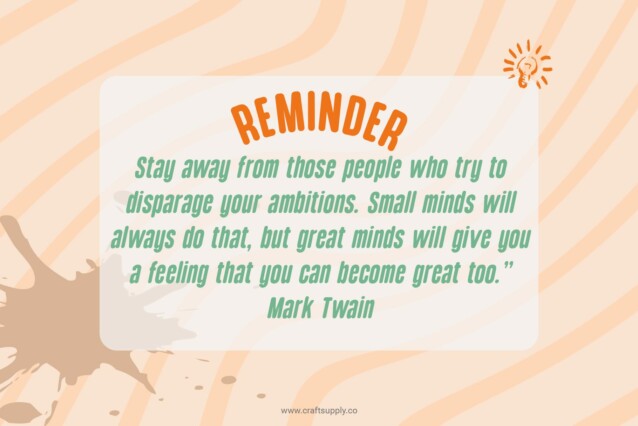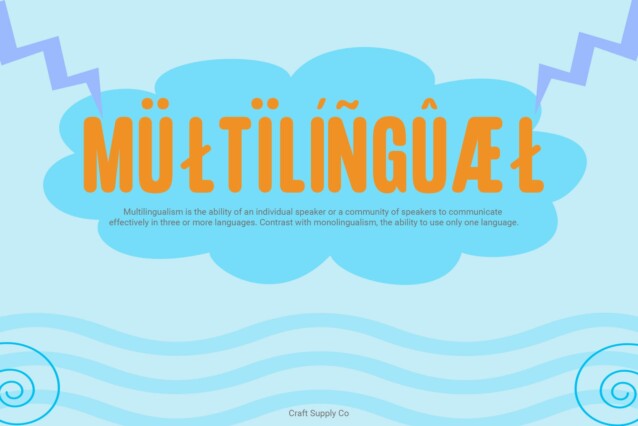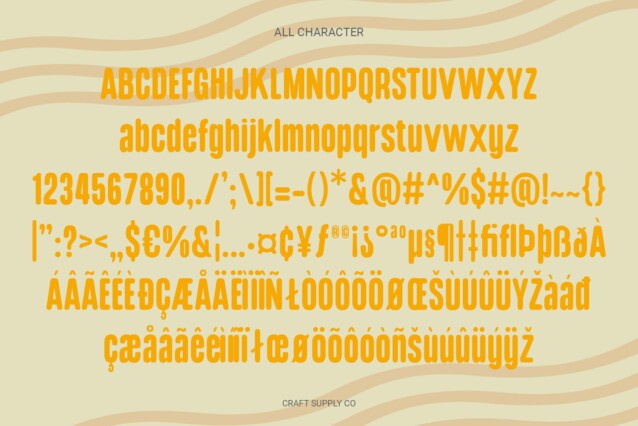
Godger Rounded Font
Godger Rounded Font: The Perfect Title Typeface. Bold and Condensed Godger Rounded features a bold and condensed sans serif design, ideal for commanding attention in titles and headings. Its condensed form allows for more text to fit within limited spaces without sacrificing legibility, making it a practical choice for various design applications.
Sleek and Impactful With its sleek and impactful appearance, This font makes a bold statement, ensuring that titles stand out prominently. Its clean lines and rounded edges add a touch of modernity and sophistication, making it suitable for contemporary design projects.